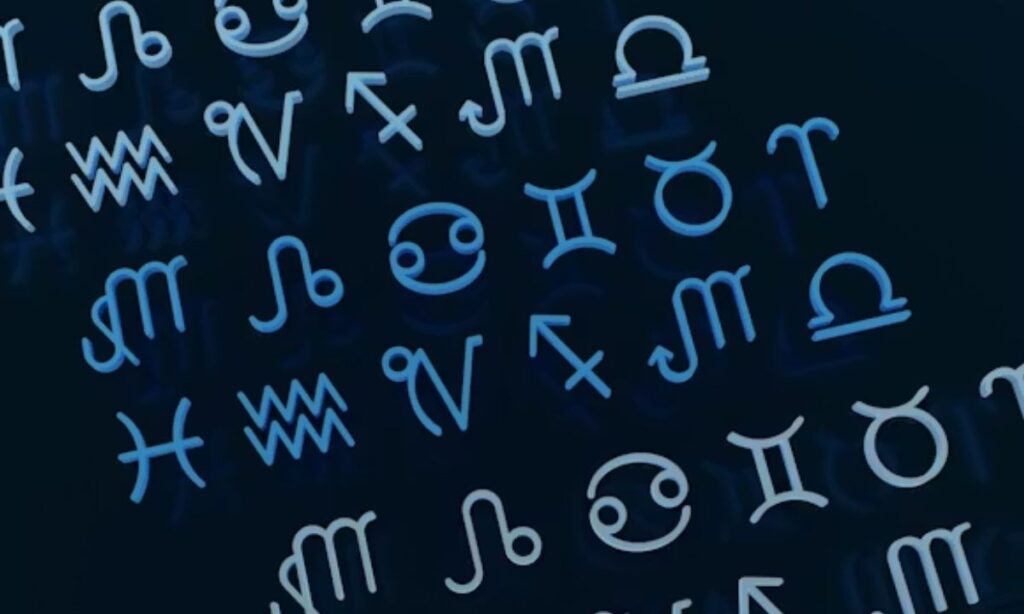
Symbol Text Generator – Copy & Paste Cool Symbols
A Symbol Text Generator converts standard text into stylish Unicode symbols, decorative fonts, and aesthetic characters. People use these tools to create unique usernames, social media bios, gaming profiles, captions, and branded content without installing design software.
Modern symbol generators support Unicode characters, emoji-style icons, superscript letters, decorative typography, and copy-paste text styles. Most tools work instantly across Instagram, TikTok, Discord, Facebook, WhatsApp, X, and YouTube.
What Is a Symbol Text Generator?
Symbol Text Generator
A Symbol Text Generator is an online tool that transforms plain text into visually styled text using Unicode symbols, special characters, and font variations. The generator replaces standard alphanumeric characters with compatible Unicode alternatives.
Standard TextSymbol Text
Hello𝓗𝓮𝓵𝓵𝓸
Gamer★彡[Gamer]彡★
Love♡ Love ♡
These generators help users personalize digital communication while maintaining text readability across devices and platforms.
How Unicode Symbol Text Works
Unicode is a global character encoding standard. It assigns a unique code to every symbol, emoji, punctuation mark, and special character.
A symbol text generator uses Unicode-compatible characters such as:
• Mathematical alphabets
• Superscript letters
• Circled characters
• Decorative punctuation
• Emoji symbols
• Dingbats
Example Unicode symbols:
• ★ Star
• ♡ Heart
• ➜ Arrow
• ☯ Yin Yang
• ✦ Sparkle
Most modern operating systems, browsers, and social media platforms support Unicode rendering.
Benefits of Using Stylish Text Symbols
Stylish symbols improve visual identity and increase text engagement online.
Key benefits include:
• Enhance usernames with aesthetic typography
• Create eye-catching social media bios
• Improve branding consistency
• Add decorative elements to messages
• Increase profile uniqueness
• Make gaming tags more memorable
Popular use cases:
PlatformCommon Use
InstagramBio styling
TikTokUsername decoration
DiscordNickname customization
YouTubeChannel branding
TwitchStream identity
WhatsAppStylish status text
Types of Symbol Text You Can Generate
Symbol generators support multiple text styles, decorative icons, and Unicode character categories. Users can combine symbols with aesthetic fonts for unique visual formatting.
Heart, Star, and Arrow Symbols
Heart, star, and arrow symbols are among the most searched Unicode characters online.
Popular heart symbols:
• ♡
• ♥
• ❥
• ღ
• 💖
Popular star symbols:
• ★
• ☆
• ✦
• ✧
• ✪
Popular arrow symbols:
• ➜
• ➝
• ➤
• ⇢
• ➥
Example combinations:
• ★彡 Your Name 彡★
• ➜ Follow Me
• ♡ Dream Big ♡
These symbols improve profile aesthetics and help organize text visually.
Fancy Fonts and Aesthetic Text Styles
Fancy text styles use Unicode alphabets that visually resemble decorative fonts. These styles work through character substitution rather than actual font installation.
Popular aesthetic styles include:
Text StyleExample
Cursive𝒮𝓉𝓎𝓁𝒾𝓈𝒽
Bold𝐁𝐨𝐥𝐝
Gothic𝔊𝔬𝔱𝔥𝔦𝔠
Bubbleⓑⓤⓑⓑⓛⓔ
Monospace𝚃𝚎𝚡𝚝
Small Capsꜱᴍᴀʟʟ ᴄᴀᴘꜱ
Users commonly apply these styles in:
• Instagram bios
• TikTok captions
• Gaming usernames
• YouTube channel names
• Discord nicknames
How to Use a Symbol Text Generator
Most symbol text generators operate instantly through browser-based interfaces. Users type standard text into an input field and receive multiple Unicode variations.
Basic workflow:
1. Enter your text
2. Select a font or symbol style
3. Copy generated text
4. Paste it into social media or messaging apps.
Most generators require no registration or software installation.
Copy and Paste Stylish Symbols
Copy-paste functionality is the core feature of Unicode text generators.
Steps:
1. Open the symbol generator
2. Type your phrase or username
3. Browse generated styles
4. Click the copy button
5. Paste the text anywhere online
Example transformations:
Plain TextStylish Output
Cool Boy𝕮𝖔𝖔𝖑 𝕭𝖔𝖞
Music♪ Music ♫
Queen👑 Queen 👑
Unicode symbols maintain compatibility across most mobile devices and desktop browsers.
Generate Text for Social Media Profiles
Social media users rely heavily on aesthetic text formatting to improve visibility and personal branding.
Common profile elements include:
• Decorative usernames
• Stylish display names
• Emoji separators
• Symbol borders
• Fancy captions
Examples:
• ✨ Content Creator ✨
• ♛ Official Profile ♛
• ➜ Daily Motivation
Instagram, TikTok, Discord, and Twitch users frequently combine Unicode text with emojis for stronger visual impact.